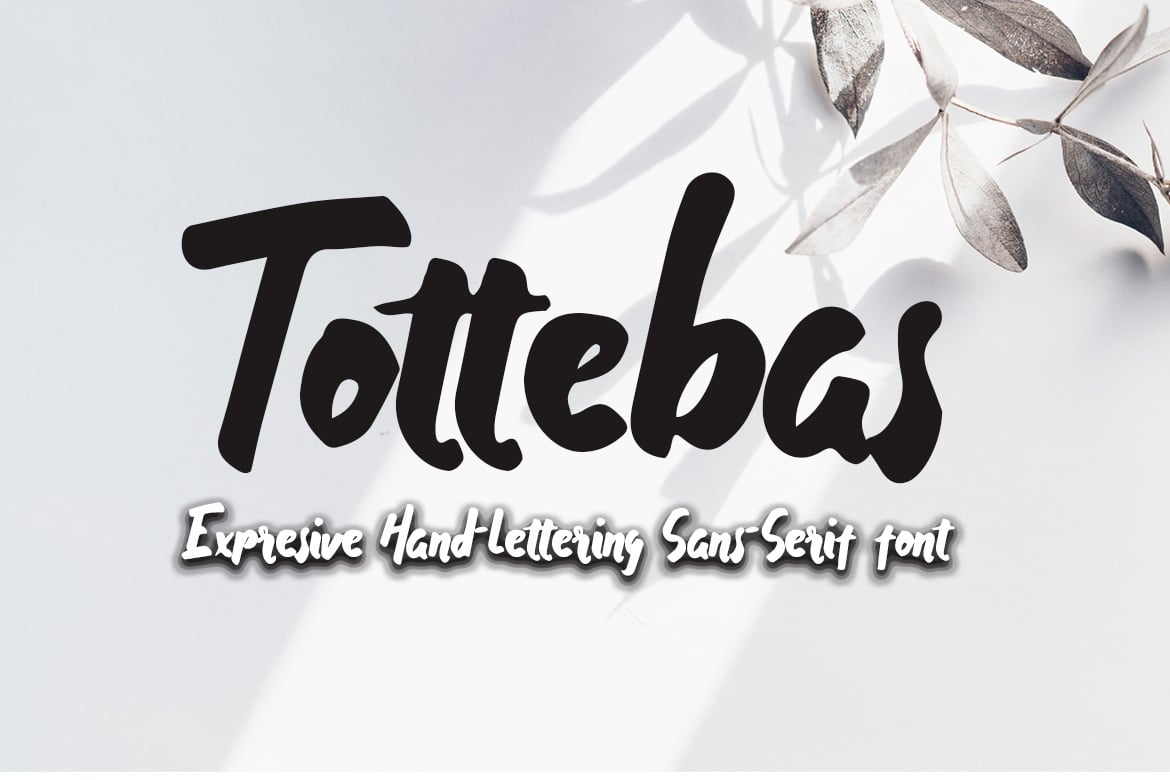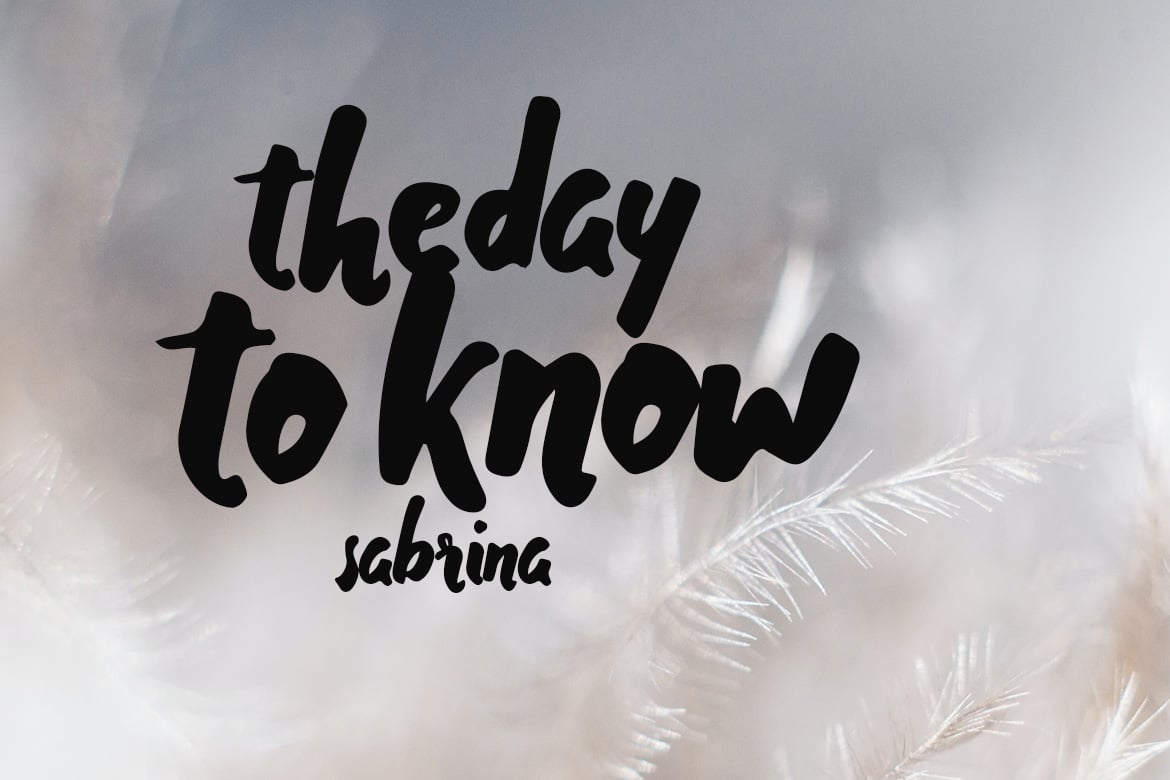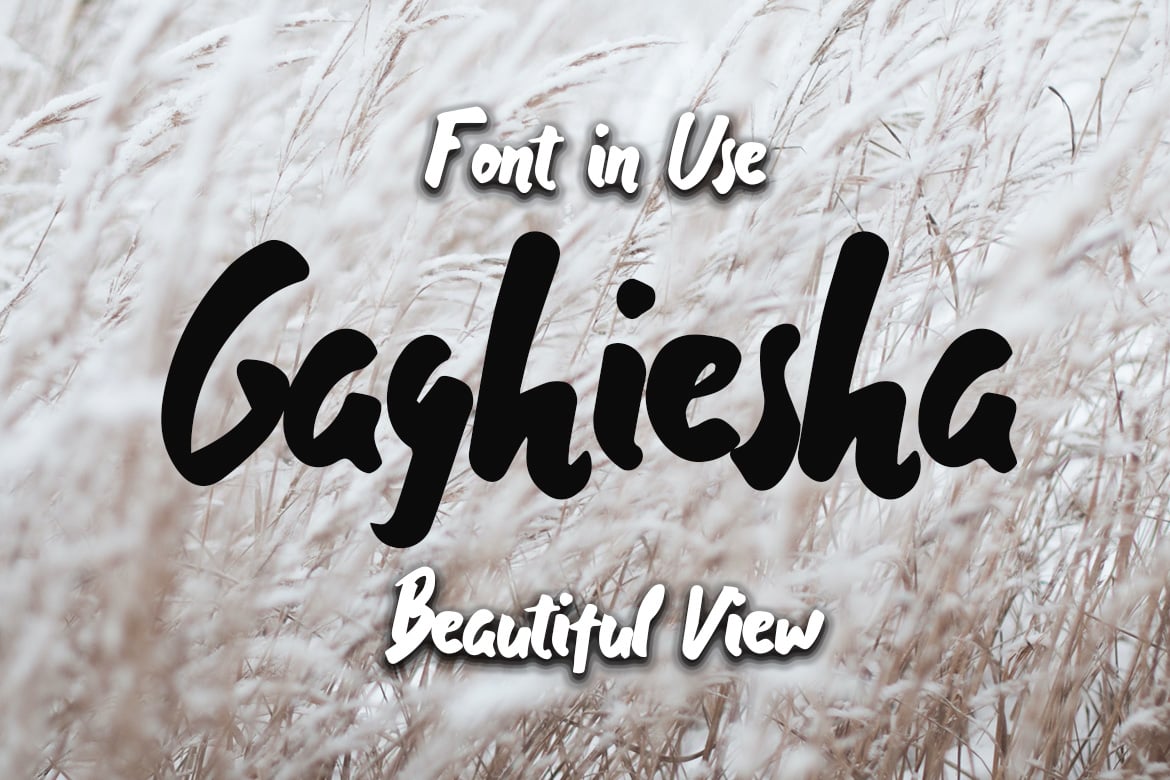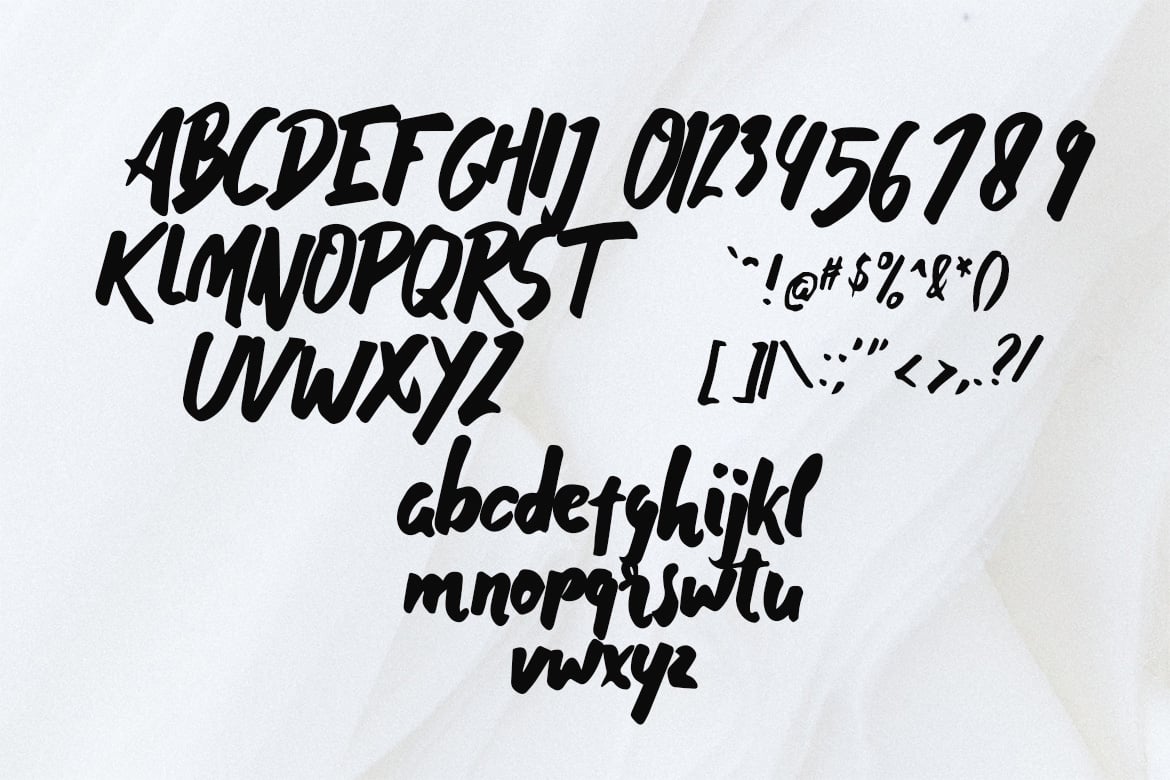
Tottebas – Hand Lettering Font
Introducing Tottebas, a unique and simple hand lettering font.
So perfect for you who needs a typeface for logo designs, magazine, social media, brochure, and many more.